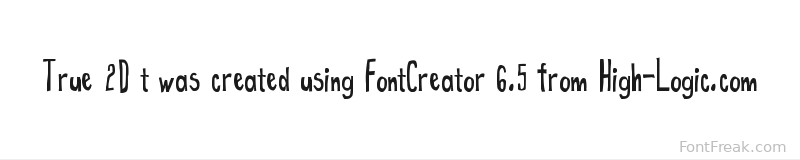
True 2D t was created using FontCreator 6.5 from High-Logic.com
About True 2D t was created using FontCreator 6.5 from High-Logic.com
True 2D t was created using FontCreator 6.5 from High-Logic.com is a distinctive display font that captures attention with its playful yet refined design. Characterized by its rounded, slightly irregular strokes, this font offers a unique blend of whimsy and professionalism. The moderate stroke weight creates a balanced visual appeal, while the even spacing between characters enhances readability, making it suitable for various applications.
This font shines in creative contexts, particularly for wedding invitations, where its charming aesthetic can set a romantic tone. It is also ideal for movie posters, adding a contemporary flair that can attract viewers' attention. Restaurant menus can benefit from its inviting style, making dishes feel more appealing, while social media graphics can leverage its eye-catching nature to engage audiences effectively. Small business owners will find True 2D t particularly useful for branding materials, as it imparts a friendly and approachable image.
Targeting graphic designers and content creators, True 2D t offers a versatile tool for those looking to make a lasting impression. Its unique character set allows for creative freedom, enabling users to convey messages with personality and flair. The font's design is appealing to those seeking to stand out in a crowded market, providing an artistic touch that resonates with audiences.
In conclusion, True 2D t was created using FontCreator 6.5 from High-Logic.com font free download is more than just a typeface; it is a creative asset that elevates visual communication. Its playful yet polished design makes it a standout choice for a variety of projects, ensuring that any text it graces is both memorable and engaging.